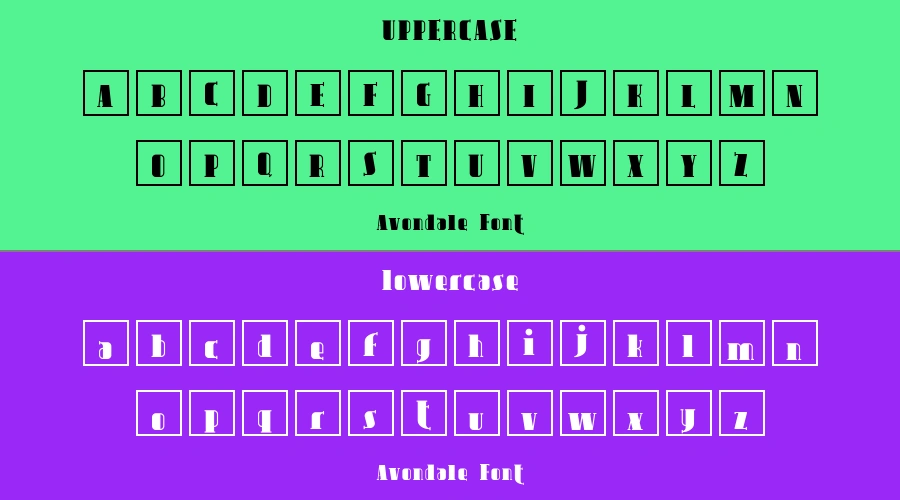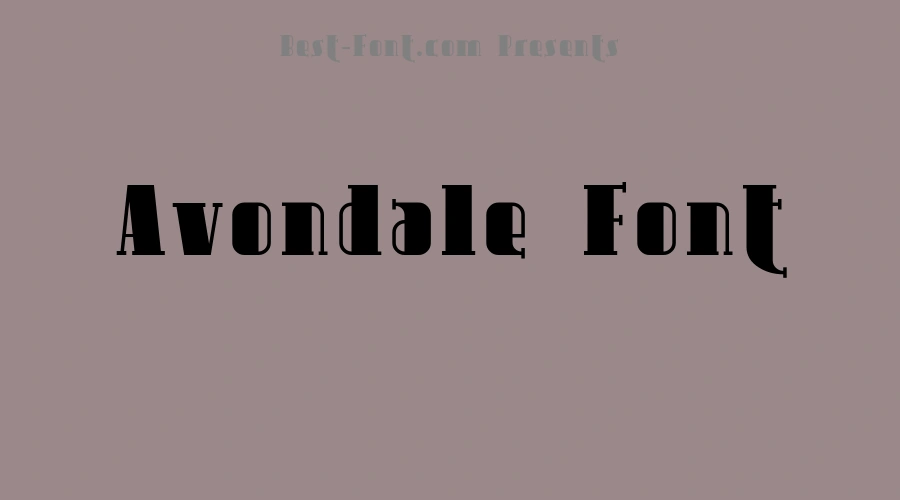
About Avondale Font
Avondale Font represents a sophisticated approach to type design, balancing hairline details with optical balance. Perfect for poster titles, this font family showcases impressive memorability and reliability throughout its character set. Designers appreciate its versatility and reliability.
Designers will appreciate nuanced touches including architectural precision and expert sets, adding sophistication to any project. These features become apparent in colophons, where headline impact matters most. The careful treatment of tail length and artistic value ensures optimal performance.